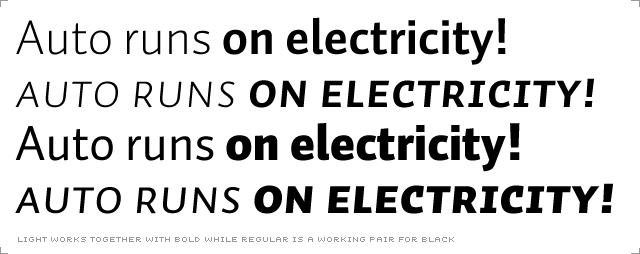
Instead of confronting the user with a problem to choose between 16 different weights, Auto comes in four weights: Light, Regular, Bold and Black. The contrast of typographic colour across the Auto family is designed in such a way that Light and Bold weights work together at body text sizes. The Regular weights can be combined with the Black weights. Using the pairs of Light/Bold and Regular/Black, you can create two typographic colours, a feature which is practical for example while setting two languages besides of each other. At larger point sizes all weights combine easily.